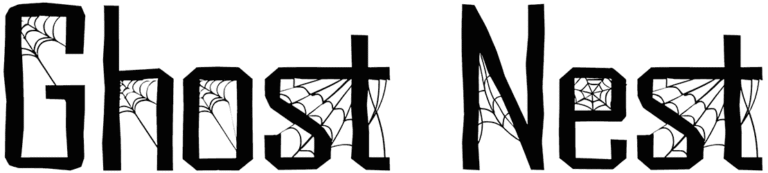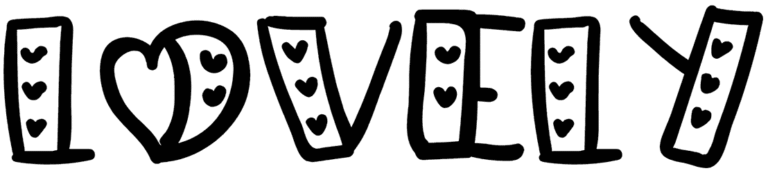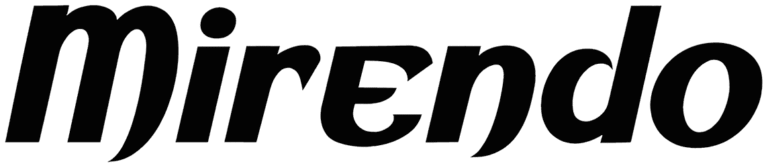
Artypa Font
While standing out alongside thousands of high-end graphic content is getting harder every moment, a wonderful font such as Artypa would help you to grab the attention of the audience at first glance.
Due to its eye-catching style, this all-caps minimalist font can be suitable for a wide range of artwork, like posters, product packaging, logos, and flyers. Considering its ability to convey a sense of innovation, happiness, or eeriness, the lack of numbers would be easily overlooked.
The font features artistic designed characters for headlines or logos which can be used for anything a little bit more crazy and unique.Go to my website: www.phitradesign-fonts.com to get the whole family for FREE or pay whatever you want to support me.